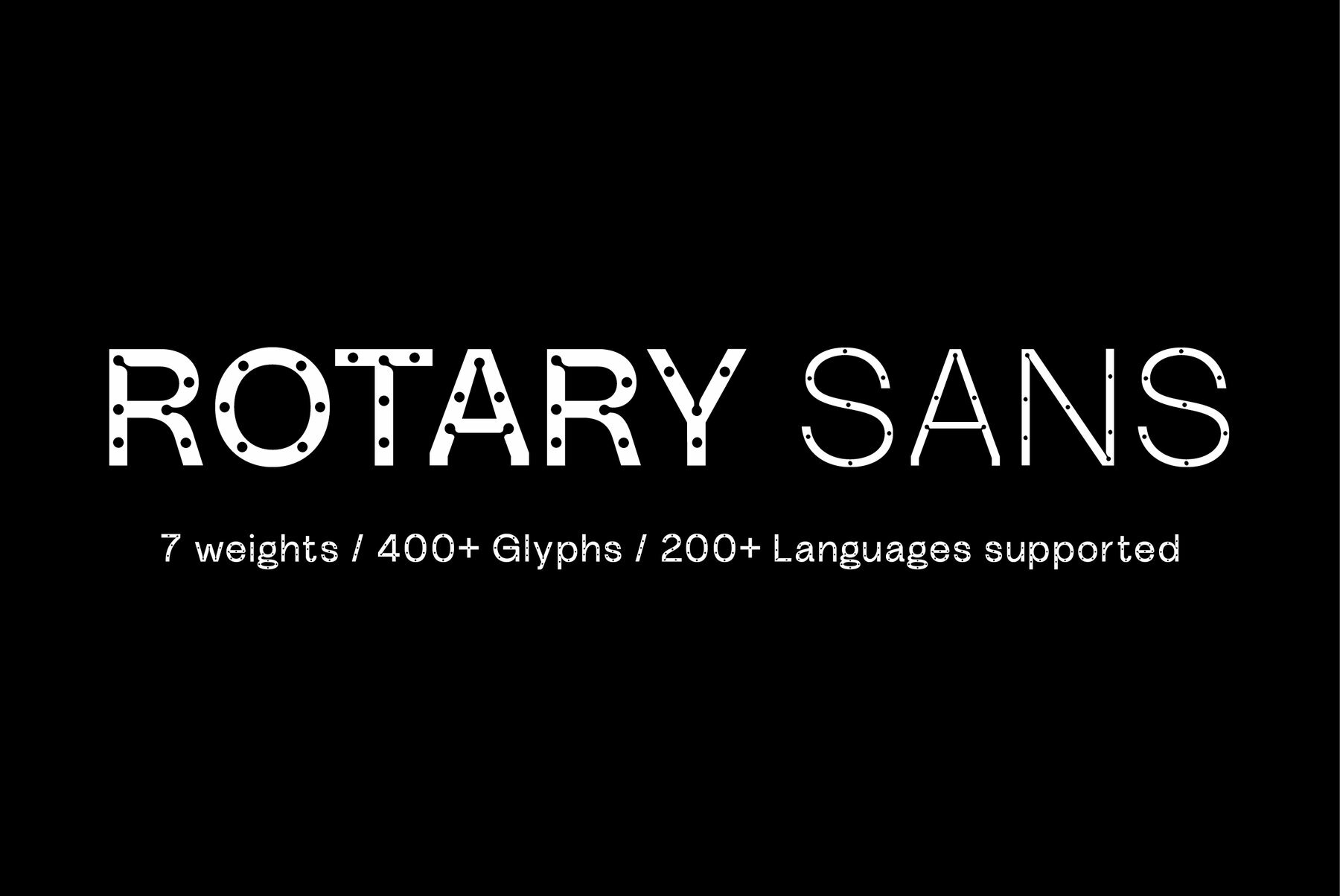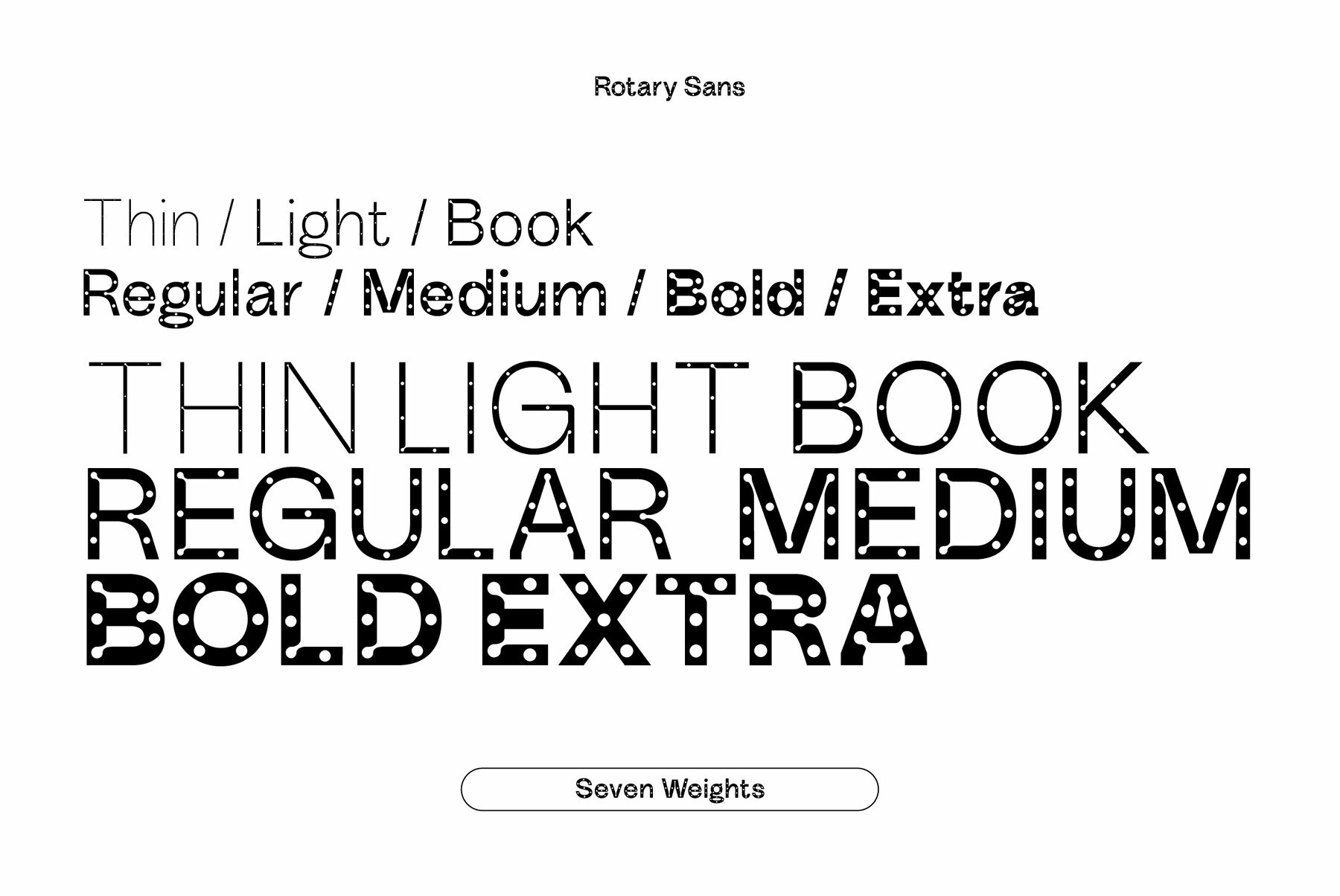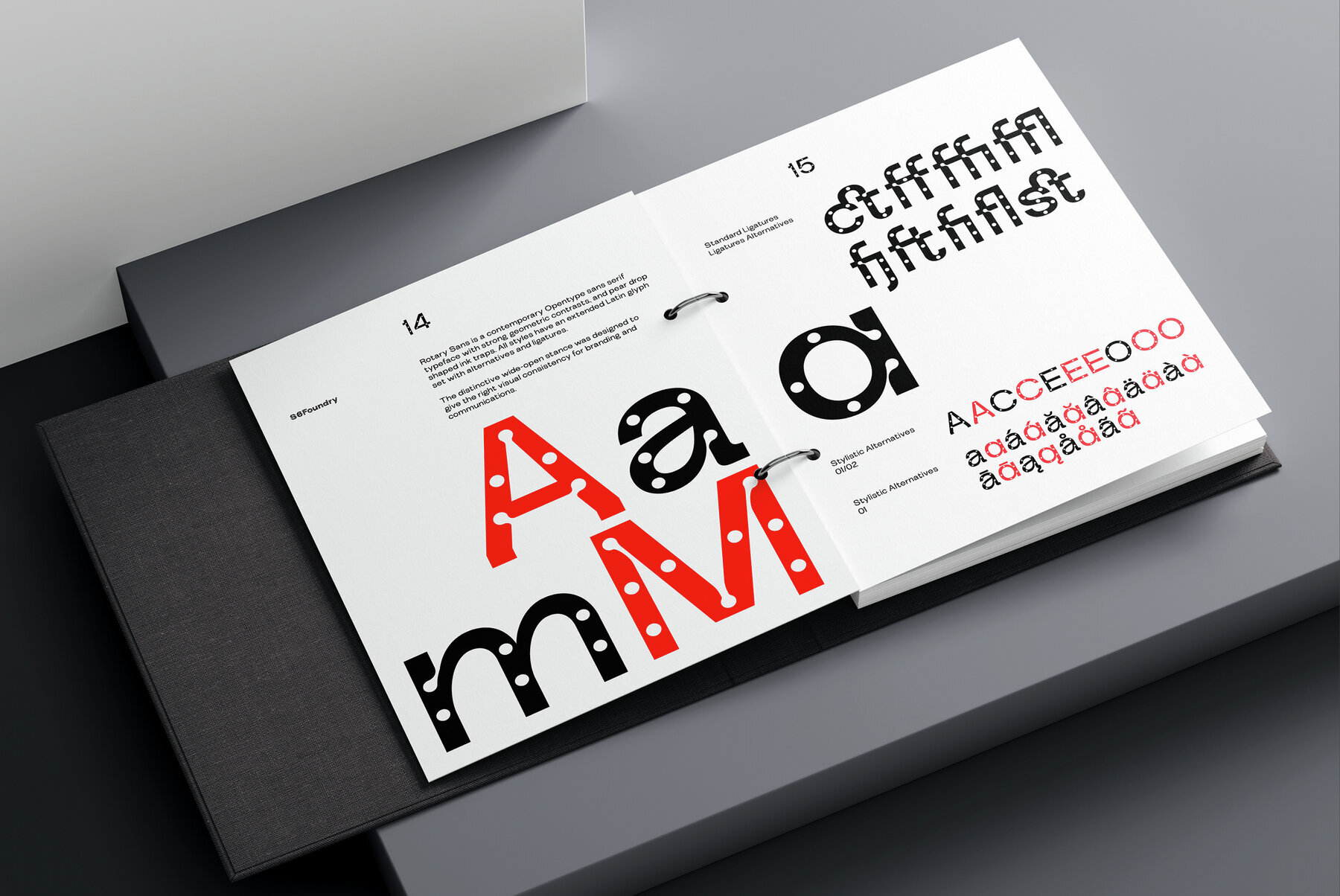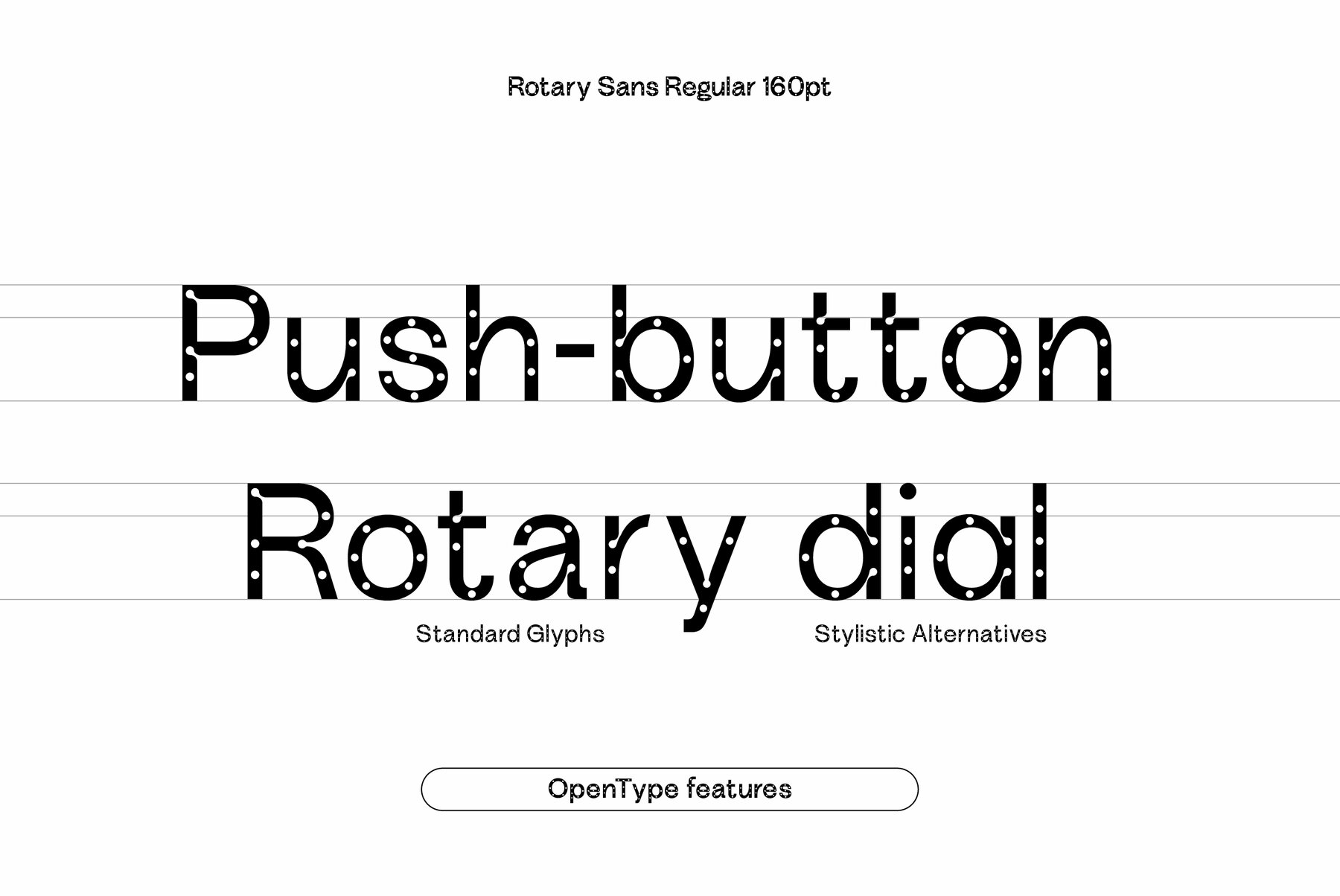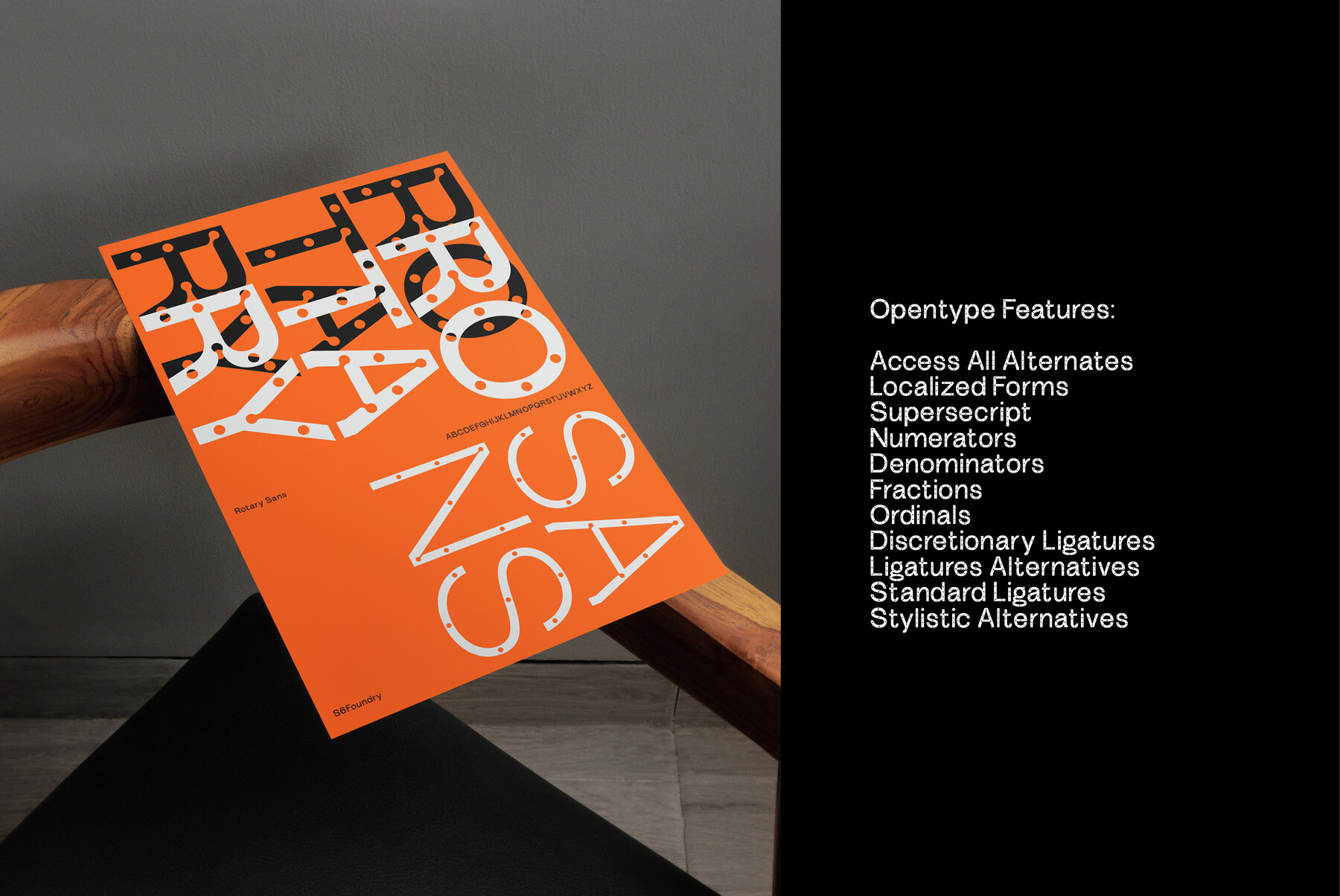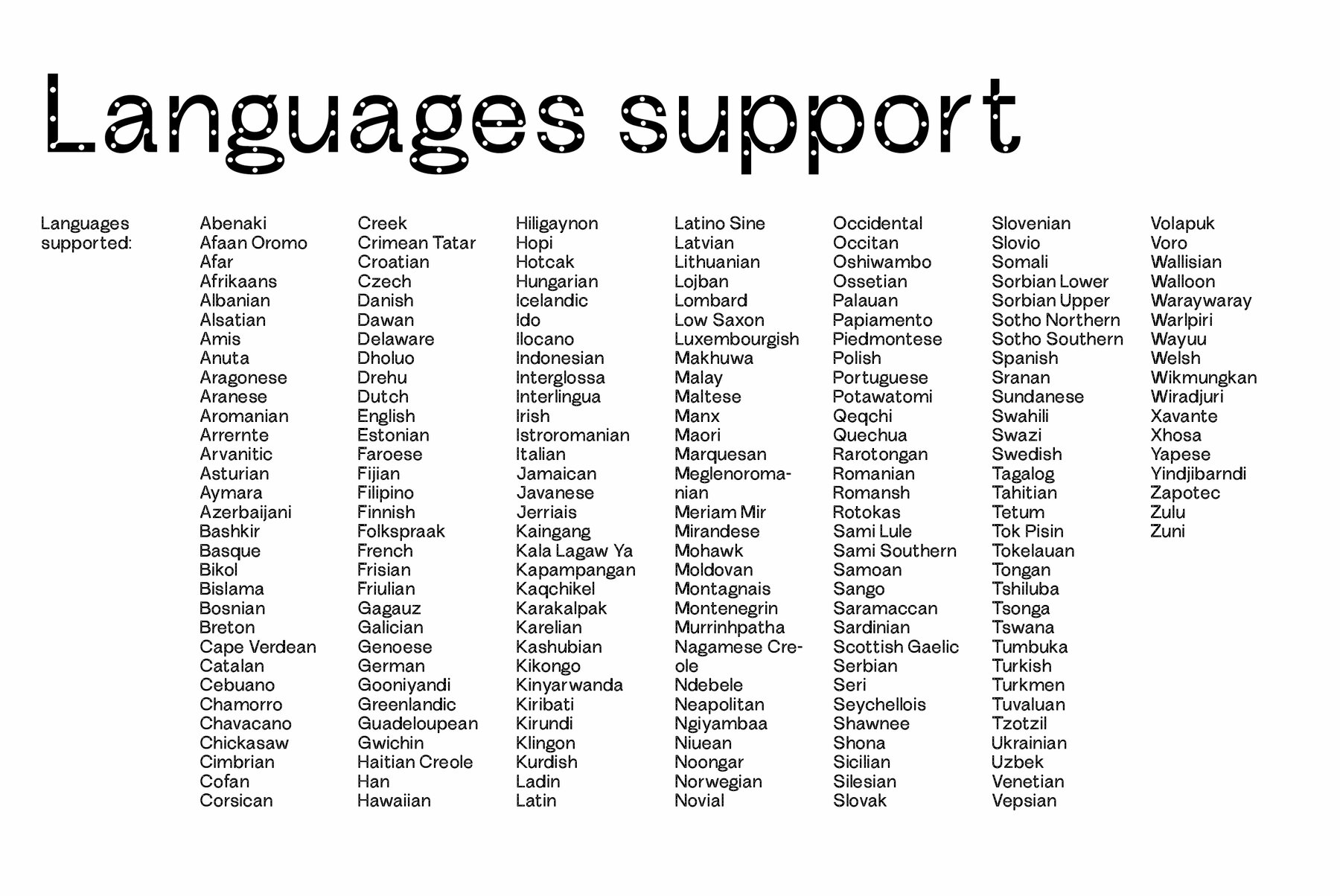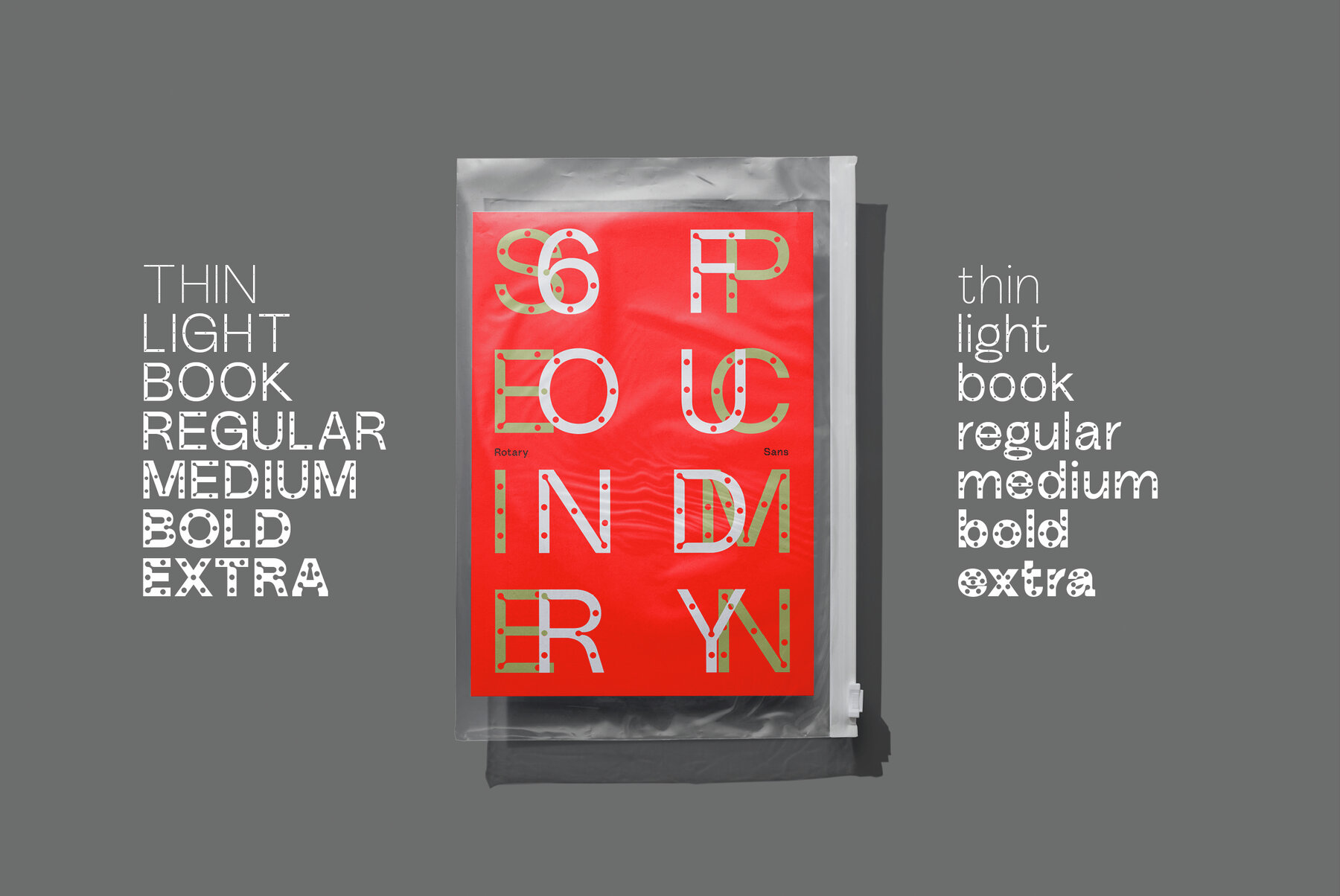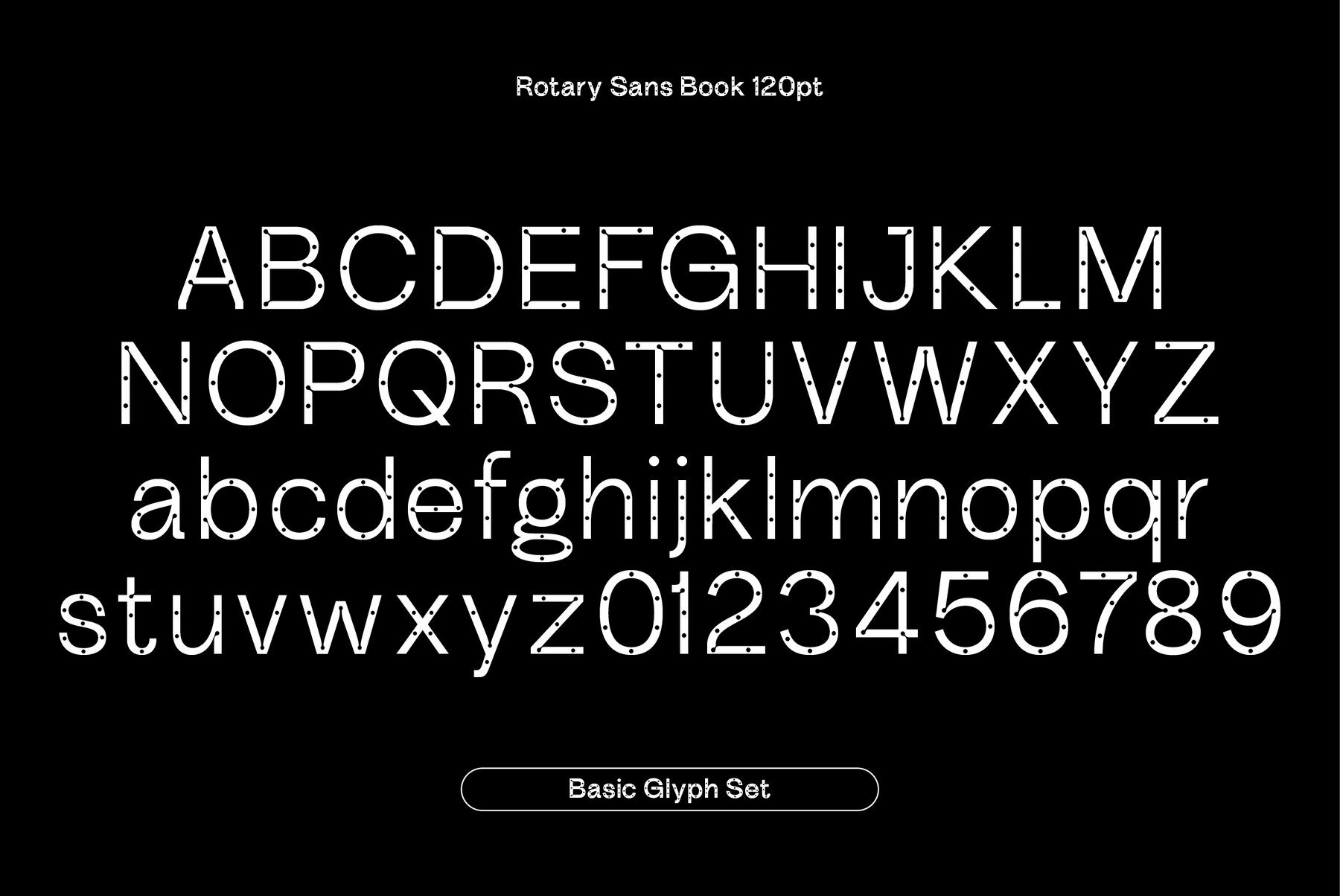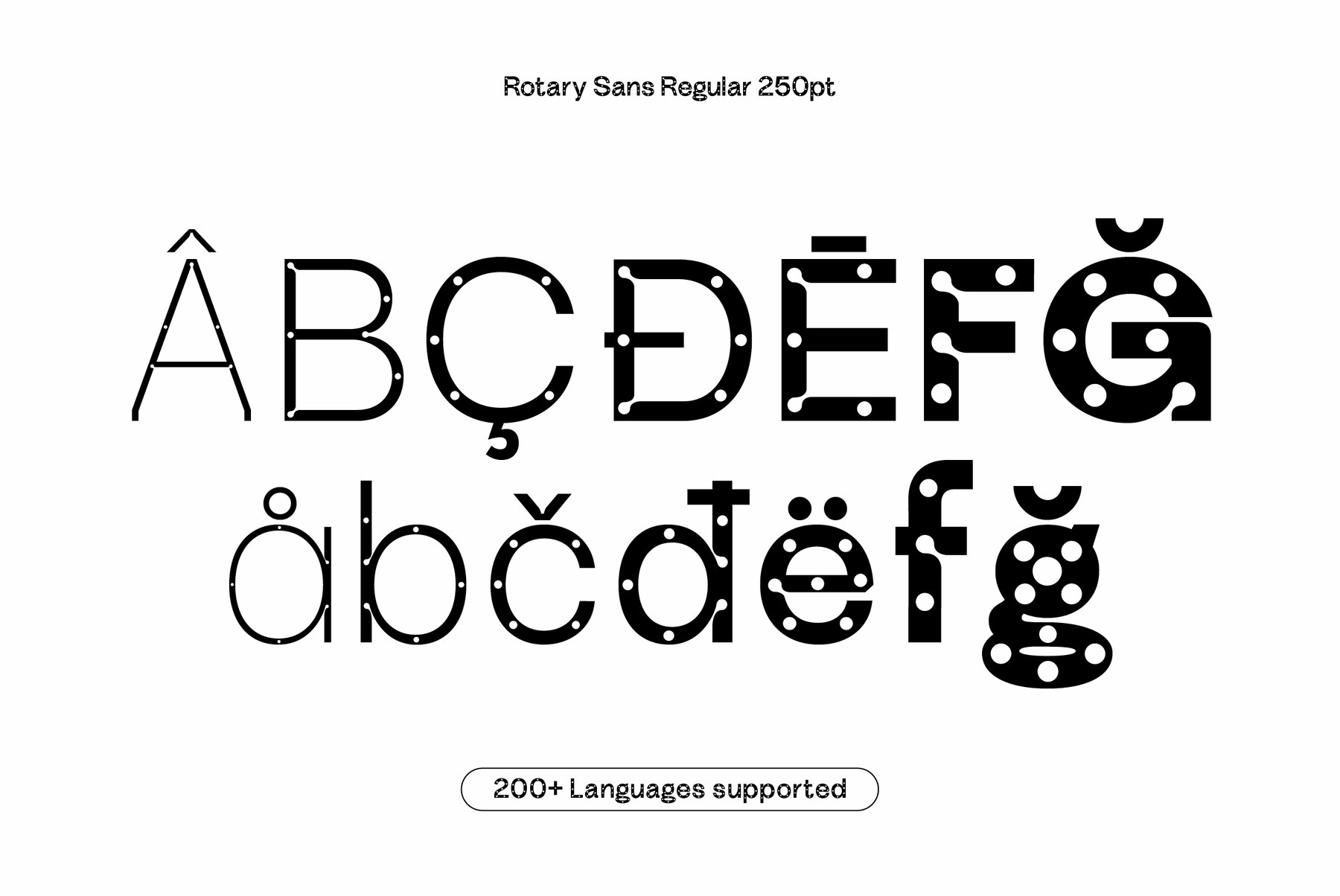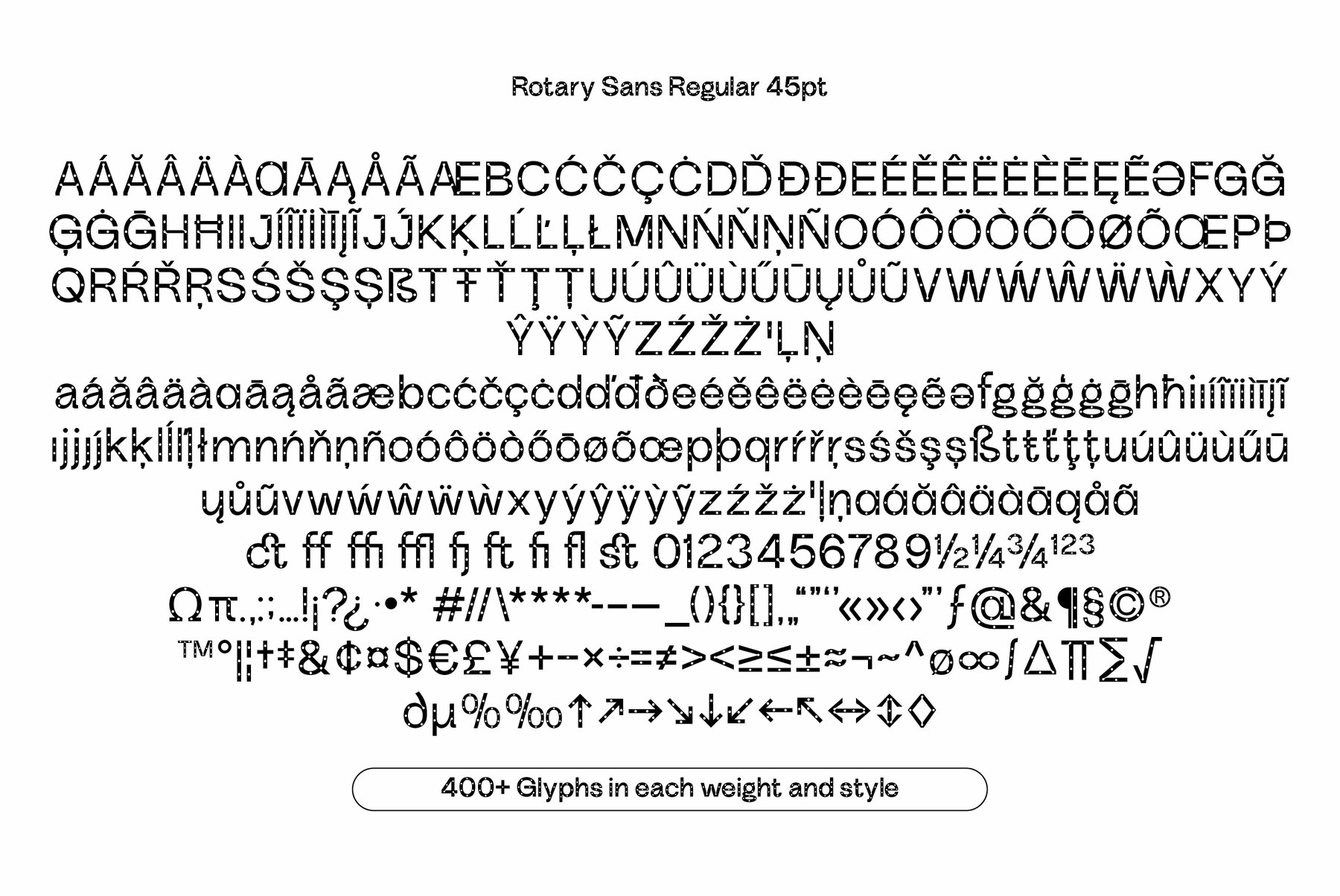
Rotary Sans Font
Rotary Sans is a contemporary Opentype sans serif typeface with strong geometric contrasts and pear drop-shaped ink traps. All styles have an extended Latin glyph set with alternatives and ligatures. The distinctive wide-open stance was designed to give the right visual consistency for branding and communications.